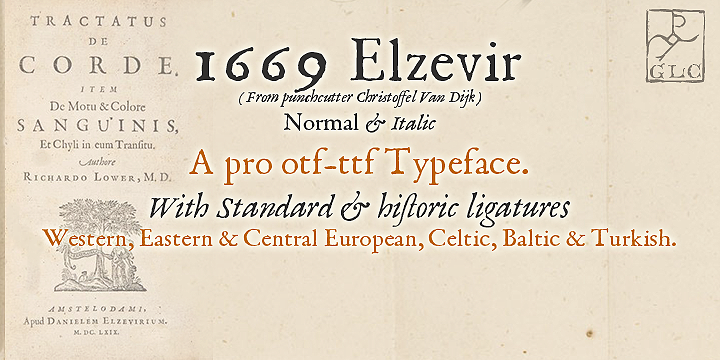
1669 Elzevir Font is perfect for historical book reproductions, classical literature publications, academic scholarly materials, museum exhibition labels, antiquarian book design, heritage documentation projects, traditional academic journals, historical research presentations, period-authentic communications, and distinguished scholarly applications. This authentic typeface creates genuine historical atmosphere in both traditional print and digital heritage platforms.
What makes 1669 Elzevir Font exciting is its faithful reproduction of 17th-century Dutch printing traditions with authentic historical character and scholarly elegance. The font features classical letterforms with period-accurate proportions and historical typographic details that evoke the golden age of Dutch printing and scholarly publishing. Its authentic design establishes an atmosphere of academic authority and historical authenticity that resonates with scholars and cultural institutions seeking genuine period typography.
1669 Elzevir Font family includes historical variations: Regular, Italic, Bold, and Scholarly versions, each with period-authentic alternates and classical character sets. Each variant maintains the font's historical integrity while providing designers with authentic options for creating traditional typography systems and scholarly communication materials.
This exceptional historical typeface brings authentic academic credibility to projects requiring period presentation. Whether you're designing historical publications, museum materials, or scholarly documentation, 1669 Elzevir Font Free Download delivers outstanding authenticity and academic sophistication. The font's period-accurate proportions and historical details ensure memorable scholarly connection across various academic applications.
Academic institutions and cultural organizations recognize how 1669 Elzevir Font perfectly captures the essence of classical printing traditions and scholarly excellence. Its historical foundation combined with academic authority makes it essential for scholarly and heritage design projects. Download today and historically authenticate your designs with this exceptionally genuine period typography.